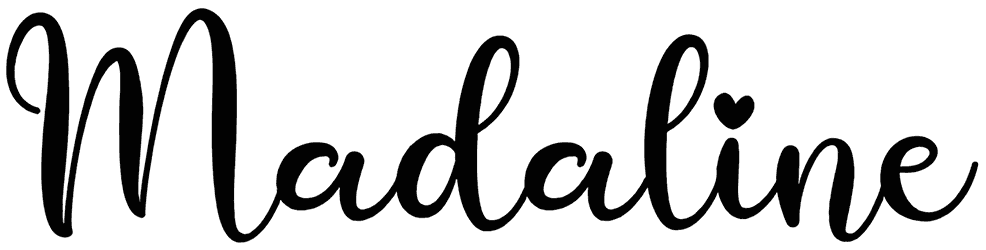
Madaline Font
In today’s digital landscape, Madaline can be a unique way to add humanity and flair to your designs. This Valentine font has a delicate style and is written very softly on paper.
As a result, it can put the slightest pressure on the reader and make it easier for people to communicate with the design. This script font is excellent for the fashion, tattoo, and stationery industries and can be a bridge to reaching your design goal.